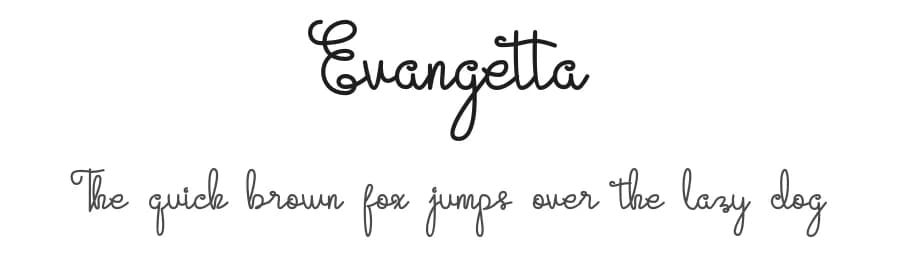
About Evangetta Font
Evangetta Minimalist Monoline Script
Evangetta is a monoline script font with five weight variations and opentype features.
Beautiful and minimalist handwriting fonts with authentic charm, add a minimalist and elegant feel to any design project.
This is perfect for branding, logos, brochures, business cards, wedding stationary, invitations, and every other design which needs a handwritten touch.
| Designer | Herya Wildan |
Evangetta Font is a script font that shines as a display or heading face. Pair it with a clean sans-serif or serif font for body text β the contrast creates a clear hierarchy while the two styles stay balanced and easy to read.
Evangetta Font